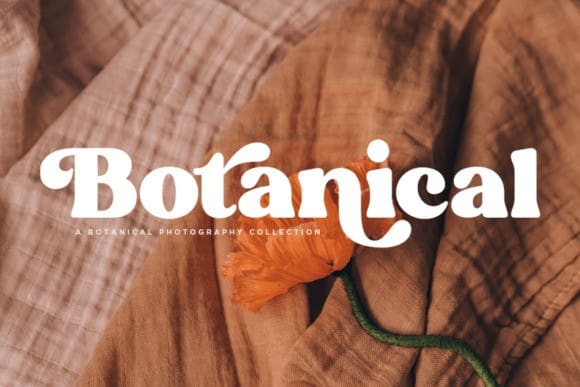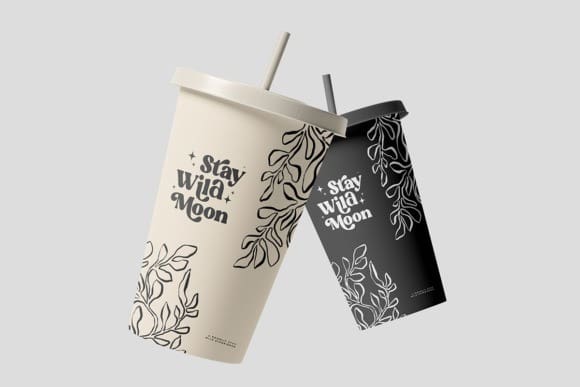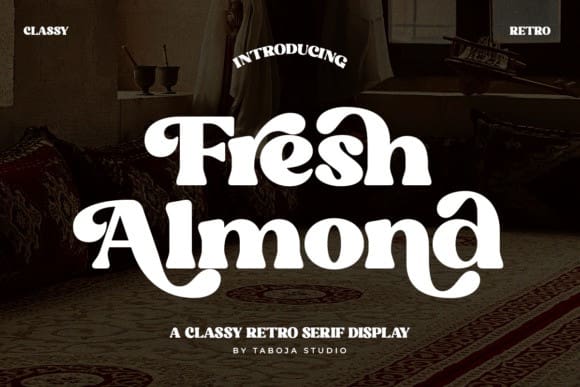
Fresh Almond Font
Fresh Almond Font, crafted with precision, our Fresh Almond Serif Font adds a touch of class to any project, be it logos, branding, print materials, or web design. Its sleek and elegant lines exude professionalism, while the subtle groovy elements inject a hint of playfulness, making it perfect for a wide range of design applications.
With its balanced proportions and distinctive serifs, this font ensures readability and visual appeal across various mediums. Elevate your designs with the perfect blend of sophistication and groove – try our FreshAlmond Serif Font today and let your creativity flow seamlessly across all your projects.